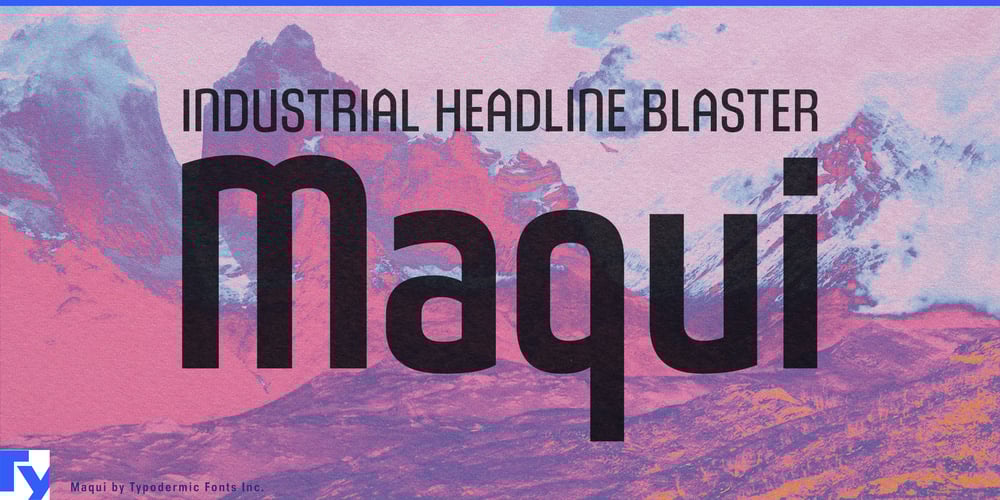
Maqui
Maqui font
Maqui Font Family was designed by Ray Larabie and published by Typodermic. Maqui contains 16 styles and family package options. Step into the sublime realm of Maqui, a postmodern industrial headline typeface that transcends mere communication to become a visual sermon of style and substance. This extraordinary font family doesn’t just convey your message—it enshrines it in typographic sanctity, elevating every word to near-divine status.At the heart of Maqui’s awe-inspiring design is its signature ‘A’, reminiscent of a cathedral’s soaring arch. This masterful touch infuses each line of text with the gravitas of centuries-old architecture, while simultaneously embracing a sleek, contemporary aesthetic. It’s as if Gothic grandeur and minimalist modernity have found common ground in this remarkable typeface. Maqui’s pared-down letterforms are a testament to the power of thoughtful reduction. Like a well-crafted homily, each character conveys maximum meaning with minimal flourish. The result is a typeface that speaks volumes even in silence, its very form a meditation on the balance between tradition and innovation.With eight weights and their italic counterparts, Maqui offers a full spectrum of typographic expression. From the whisper-quiet reverence of its lightest weight to the thunderous proclamations of its boldest, each variation maintains the typeface’s core identity—a perfect union of industrial precision and spiritual aspiration. In the world of branding and design, Maqui is nothing short of a revelation. Imagine this font gracing the facade of a cutting-edge art gallery, or lending gravitas to the masthead of a forward-thinking publication. Its unique blend of architectural allure and modern sensibility makes it an ideal choice for luxury real estate, high-end fashion, or any brand seeking to convey both heritage and innovation.Maqui’s linguistic versatility is as impressive as its visual impact. Supporting a vast array of Latin-based European writing systems, it ensures your message resonates with the same clarity and power whether you’re addressing audiences in Milan or Montreal, Barcelona or Berlin. Each language finds its voice in Maqui’s carefully crafted characters, turning every headline into a powerful declaration of intent. Don’t just communicate—consecrate your message with Maqui. Let this typeface be the cornerstone of designs that don’t just catch the eye, but capture the imagination and stir the soul.Add Maqui to your design arsenal today and watch as it transforms your creations from mere text into typographic testaments of elegance and authority.